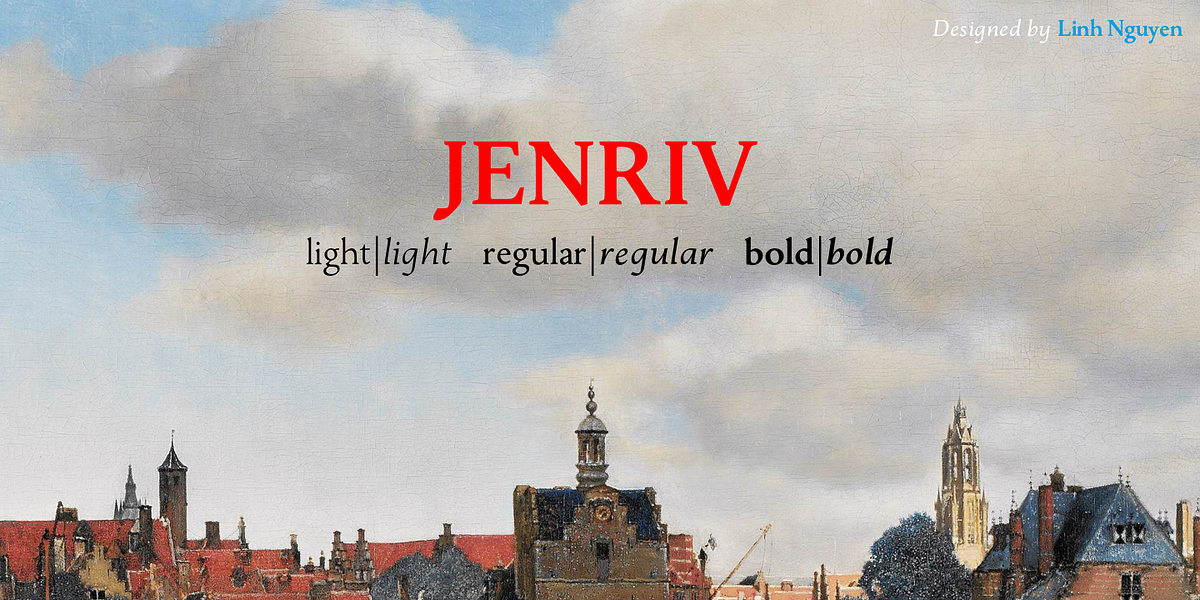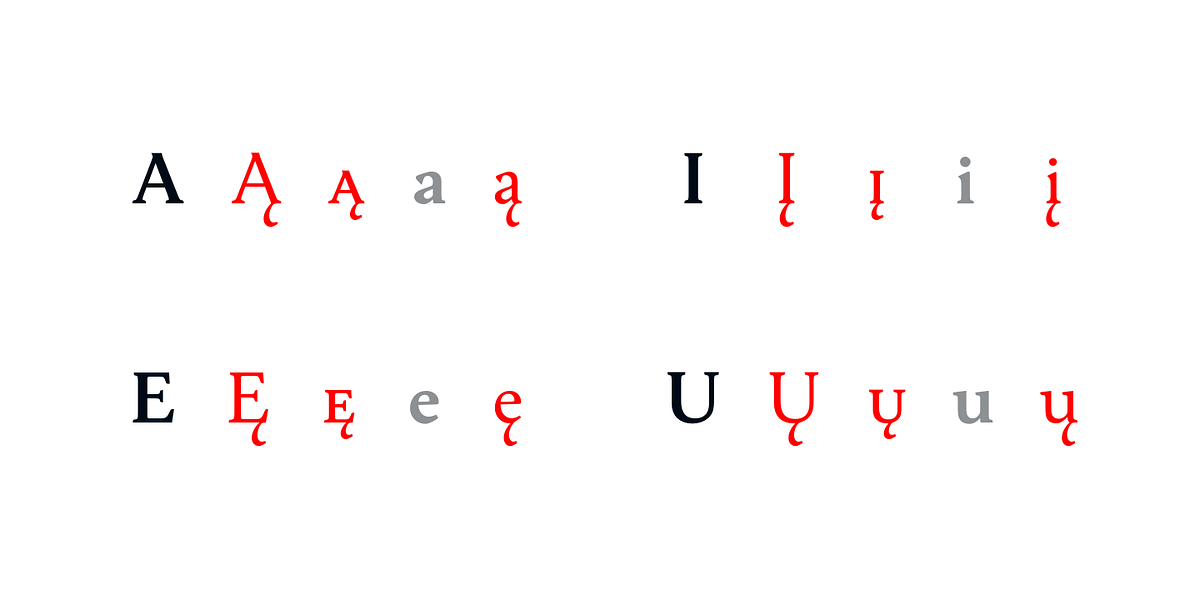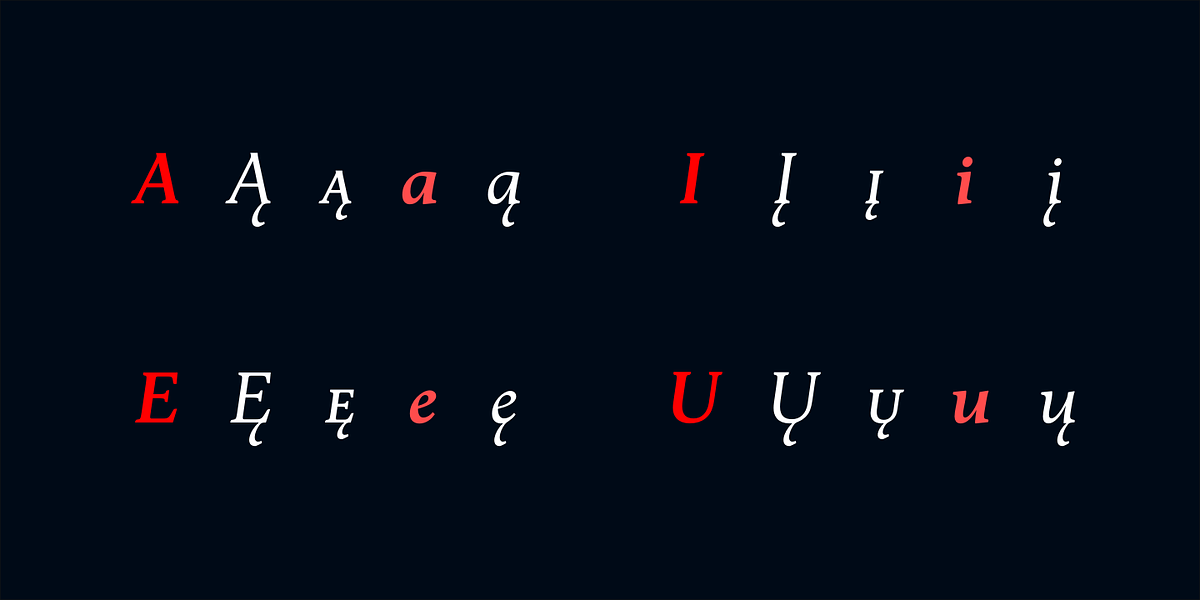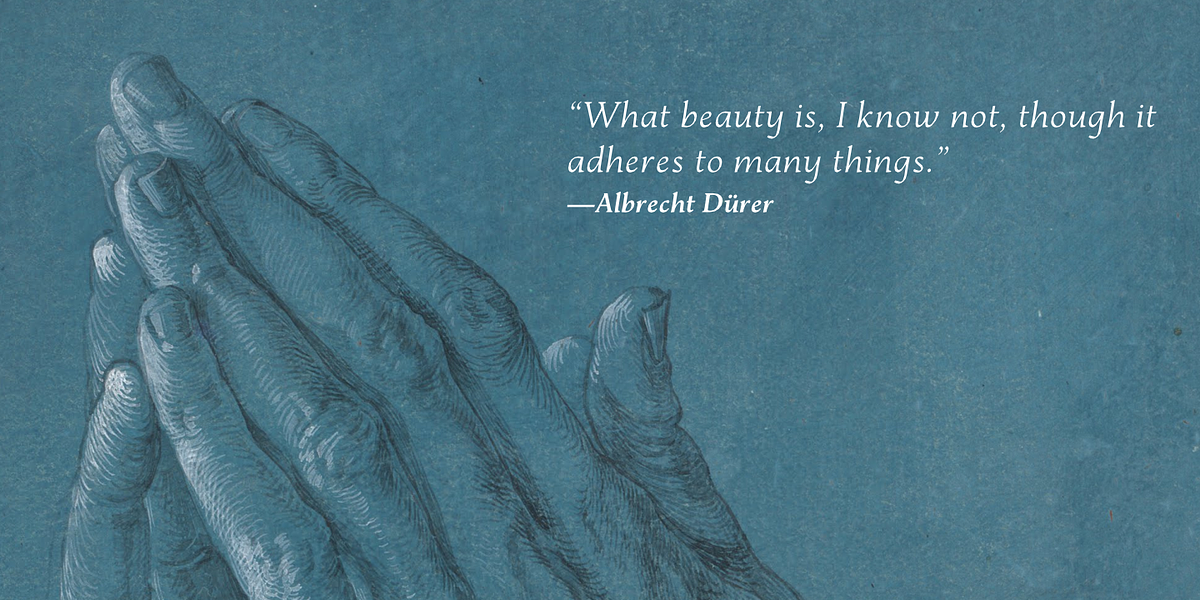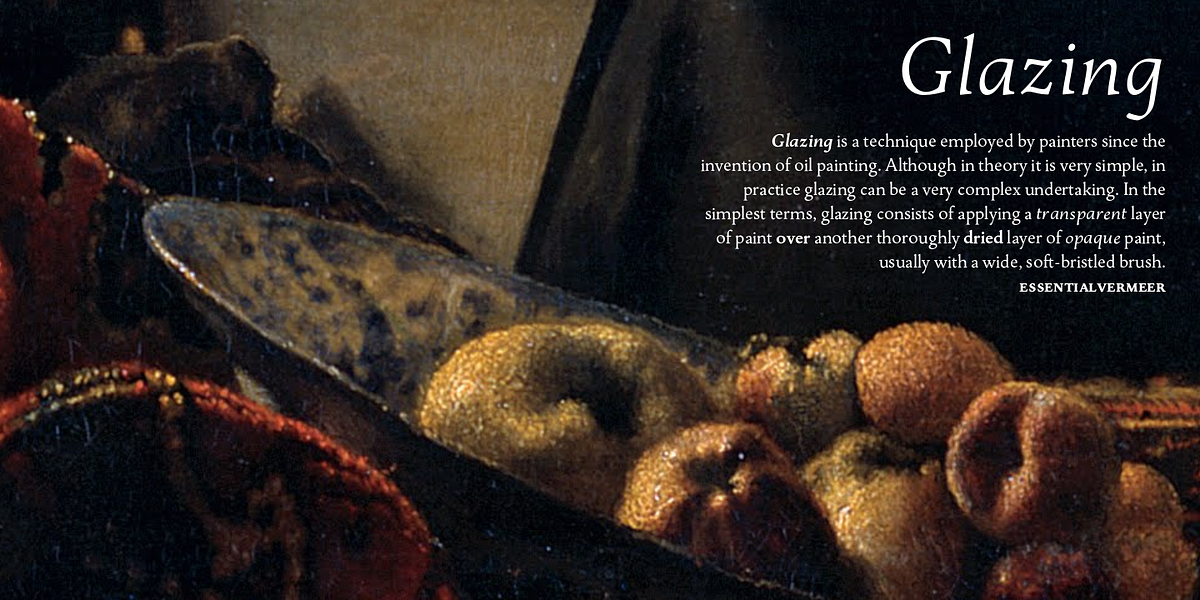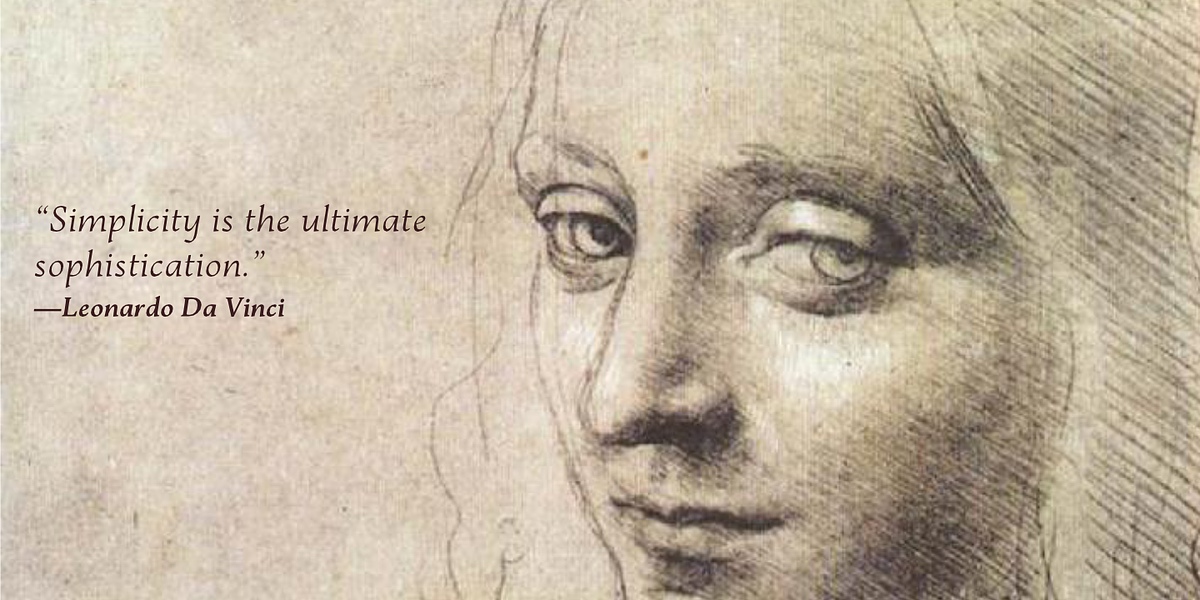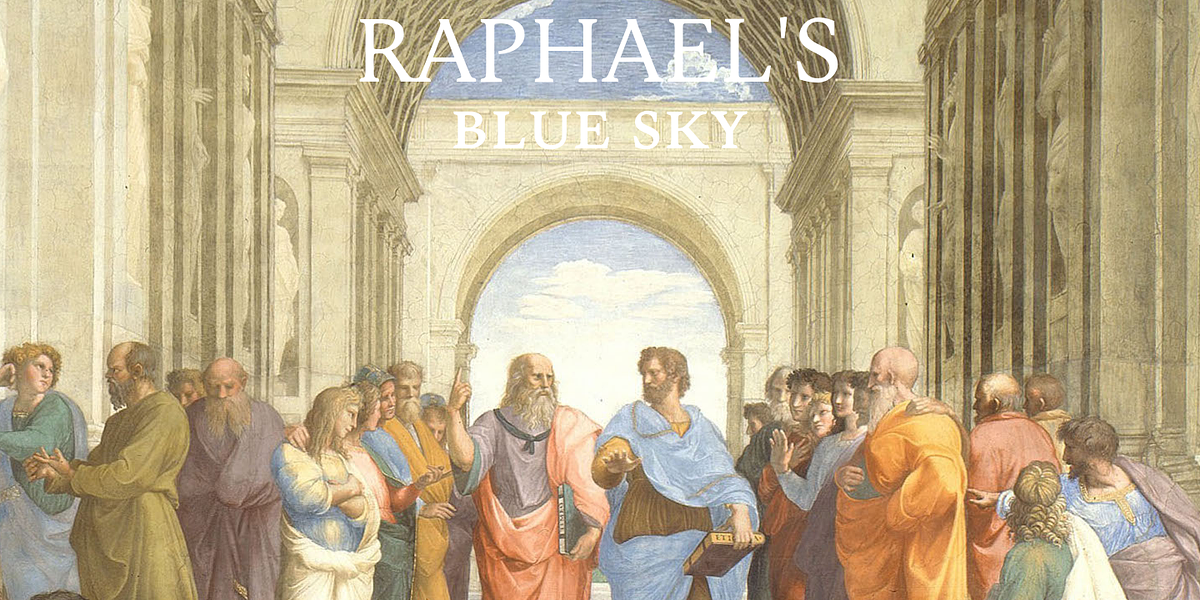
Jenriv
Jenriv is a serif font inspired by the designs of the early Renaissance. It features a calm and masculine aesthetic achieved through a combination of straightforward strokes and curves. The font boasts generous inner spaces, contributing to its overall sedate atmosphere. Jenriv supports multiple languages and various styles, making it adaptable for a wide range of applications, from medium body text to large headlines or logotypes.